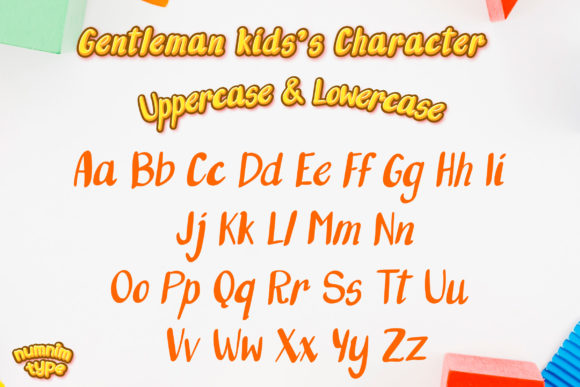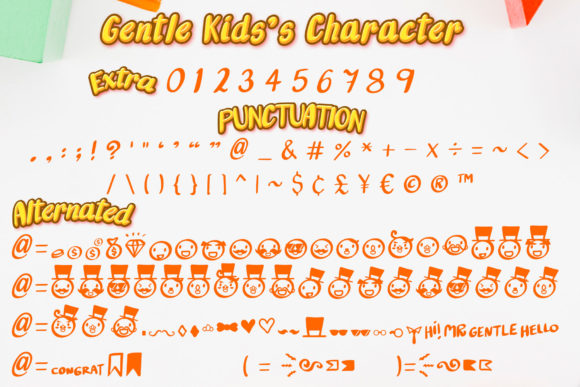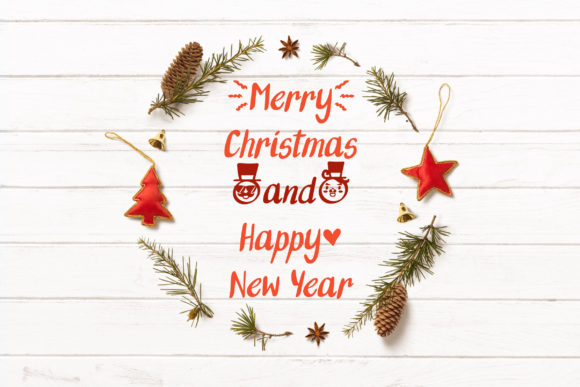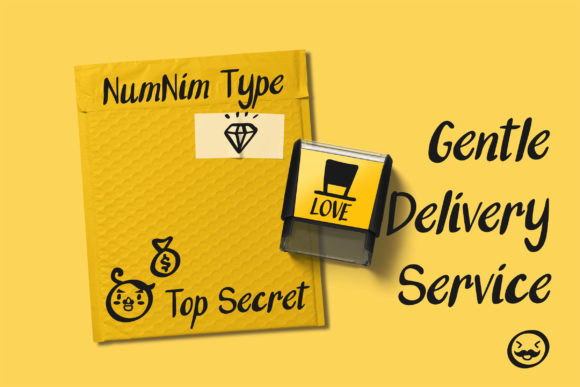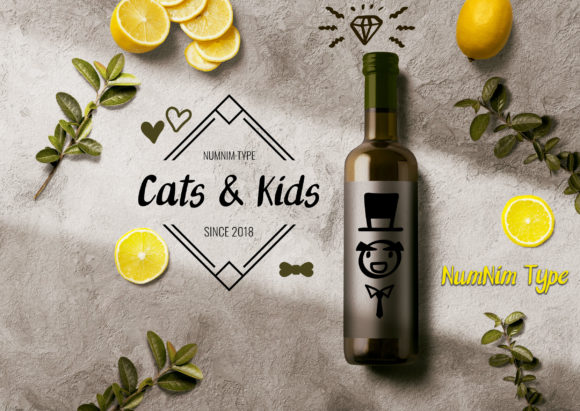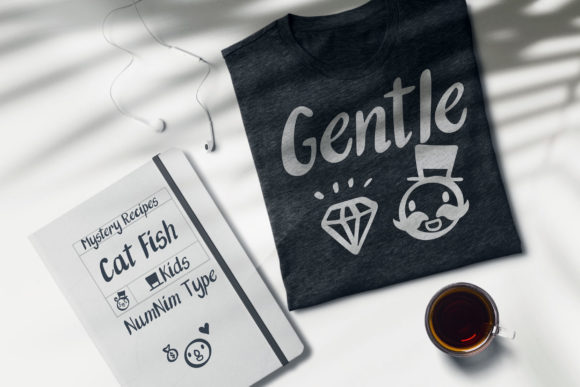
Introduction to Gentleman Kids Font
Gentleman Kids is a joyful and delicate handwritten font with cute doodle elements.
This font is perfect for holiday as well as children themed designs, especially when combined with bright colors The perfect font for greeting cards, social media posts, and so many other crafts and designs.
Key Features of Gentleman Kids Font